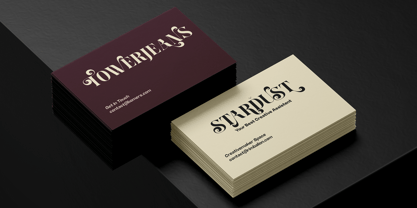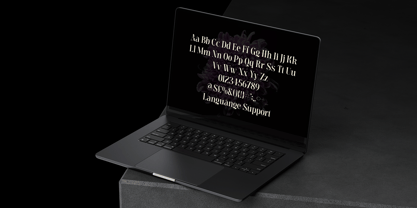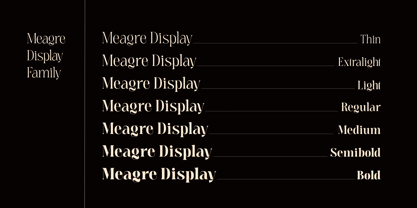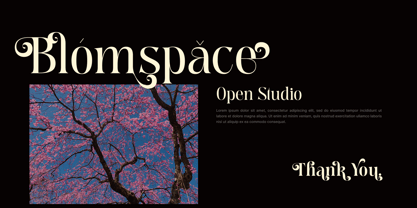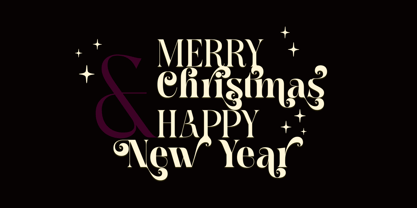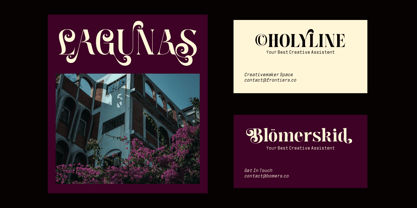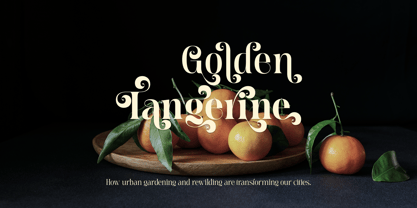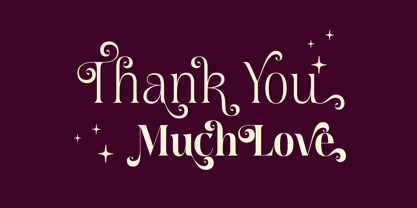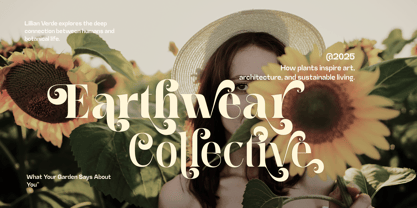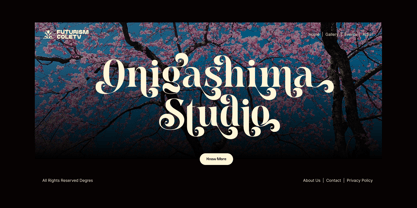
Meagre Display
by holyline design
The Meagre Display Font Family was designed by Bagus Beratha Wijaya and published by holyline design. Meagre Display contains 7 styles and family package options.
Meagre Display is a charming and expressive serif display font that blends vintage aesthetics with modern refinement. Inspired by classic magazine typography and timeless typefaces, this font brings elegance and character to any design.
With 7 weights ranging from thin to bold, Meagre Display offers versatility for both bold statements and delicate compositions. It also includes a wide range of alternates, allowing designers to effortlessly create flowing curves and beautifully crafted letterforms. Perfect for editorial layouts, branding, and nostalgic yet contemporary projects, Meagre Display combines playfulness with sophistication, making it an essential addition to any typographic collection.